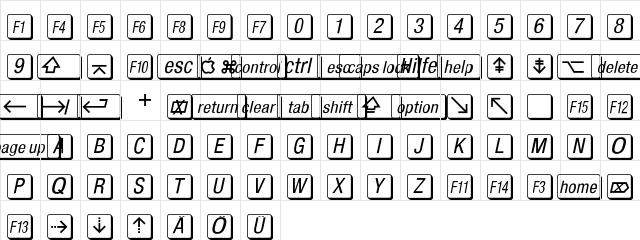
Mac Key Caps Regular
| Designer | Linotype Library GmbH |
Design Context for Mac Key Caps Typeface
Mac Key Caps takes a measured approach to typography — its balanced proportions and neutral character make it a reliable workhorse for both digital and print work.